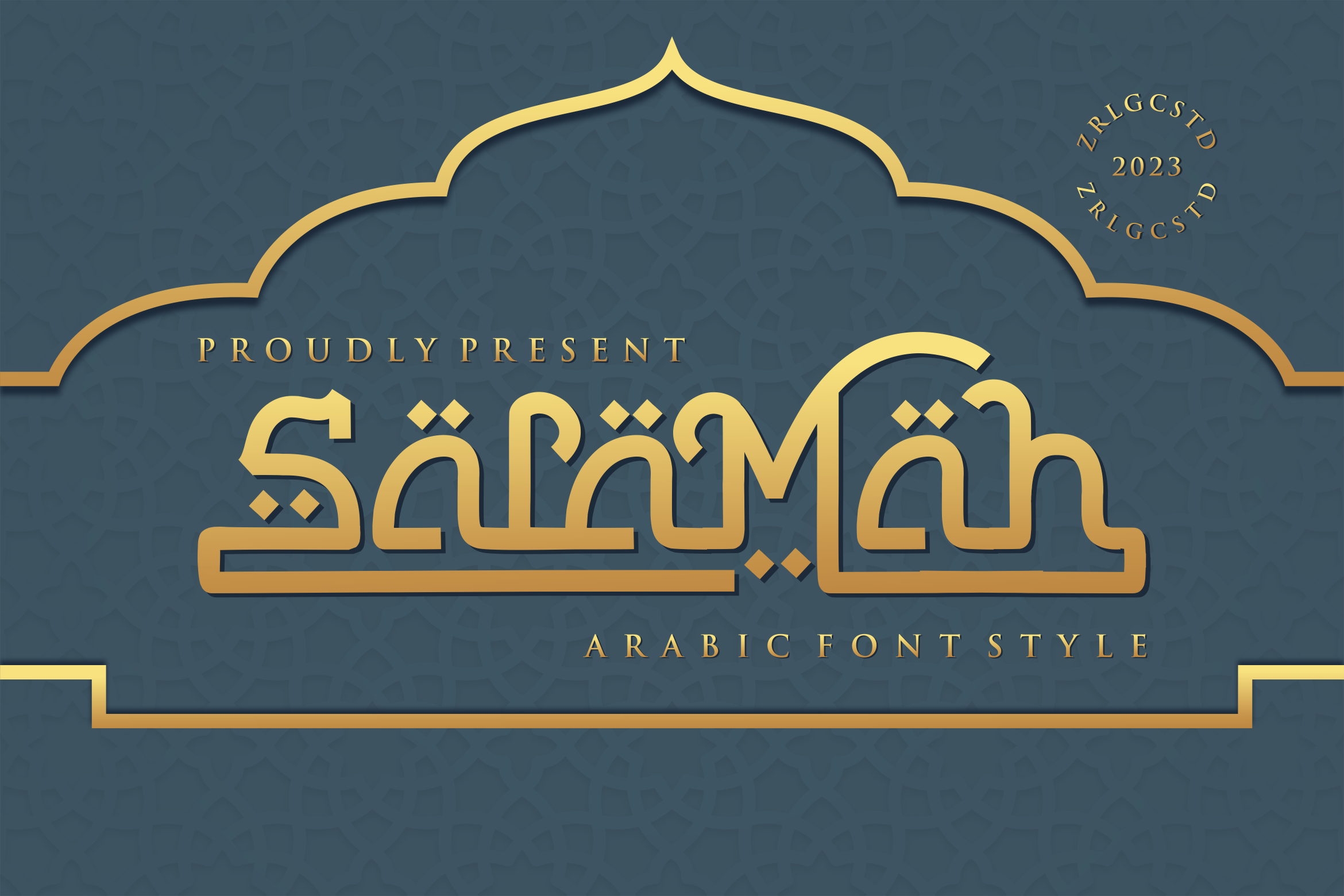
Salamah Arabic Style Typeface
Salamah is modern and luxury arabis style font that we designed with original touch for your needs. This cool font is complete with Uppercase, Lowercase, Numeric & symbols. This very strong and sharp font is perfect for titles, typography, posters, magazines, brochures, packaging, Websites and much more for your design needs, making your designs more cool.